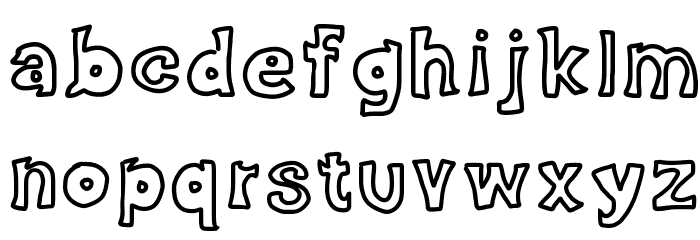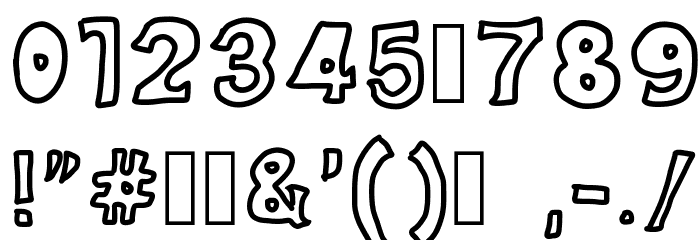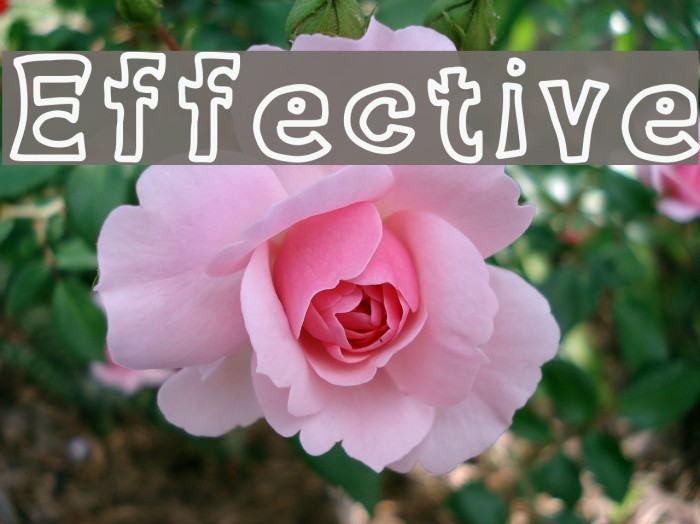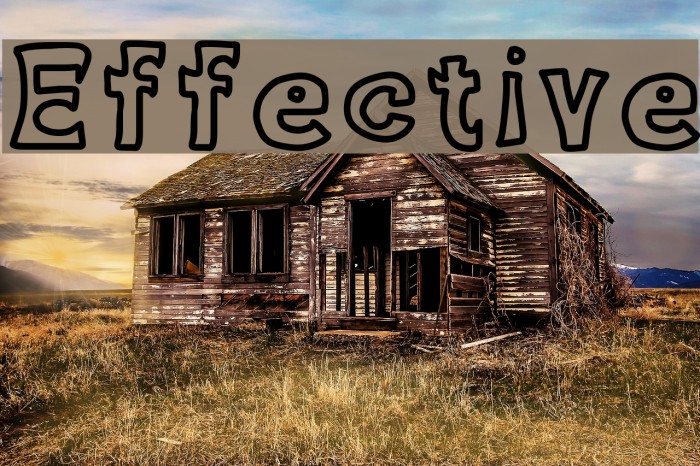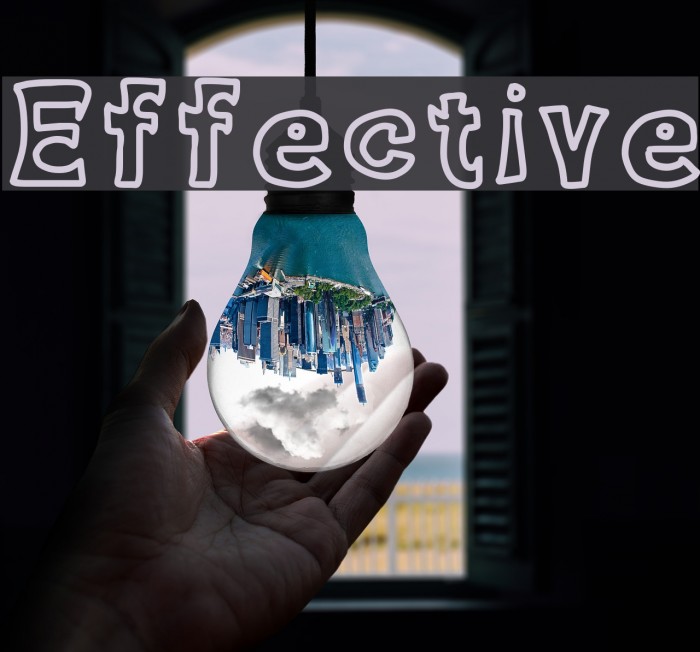
Effective Font
This playful and bold font features a hand-drawn, cartoonish style with thick, uneven strokes that give it a whimsical and informal appearance. The characters are outlined with a consistent thickness, creating a bubble-like effect that adds to its charm. Each letter has a unique, slightly irregular shape, contributing to the font's lively and dynamic feel. The numbers and special characters maintain this playful aesthetic, making it suitable for creative and fun projects. The font's overall design is eye-catching and ideal for capturing attention in a lighthearted context.
A playful, hand-drawn font with bold, cartoonish outlines and a whimsical style.
- Proposed Projects: Ideal for children's books, comic strips, playful branding, party invitations, and educational materials.
- Overall Style: Playful, Whimsical, Cartoonish